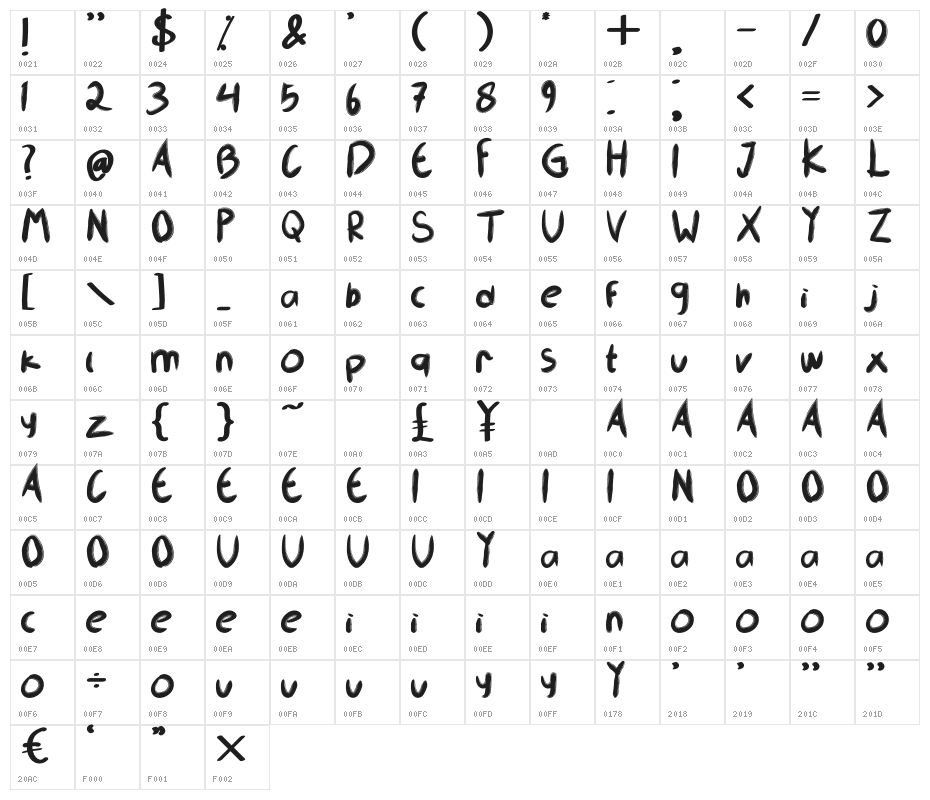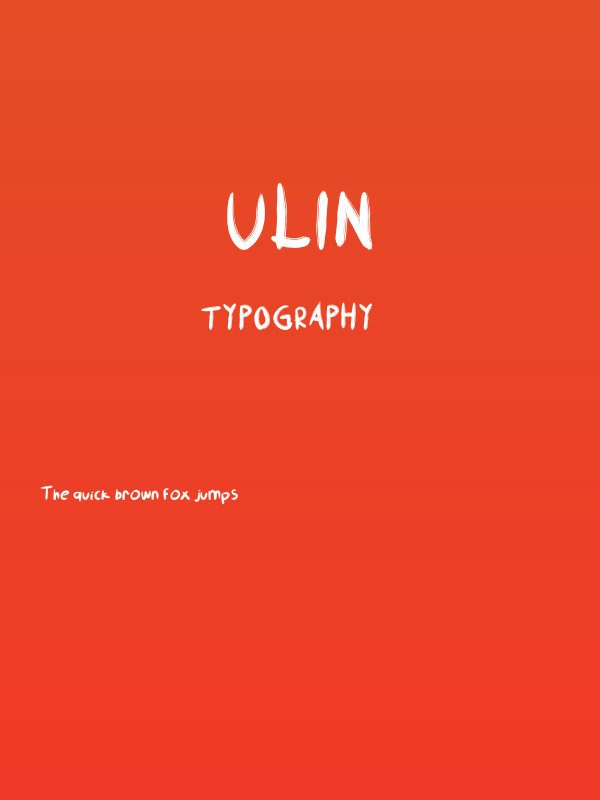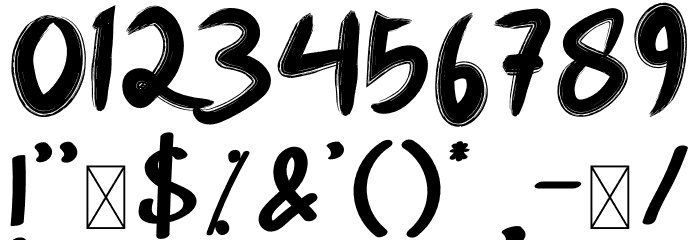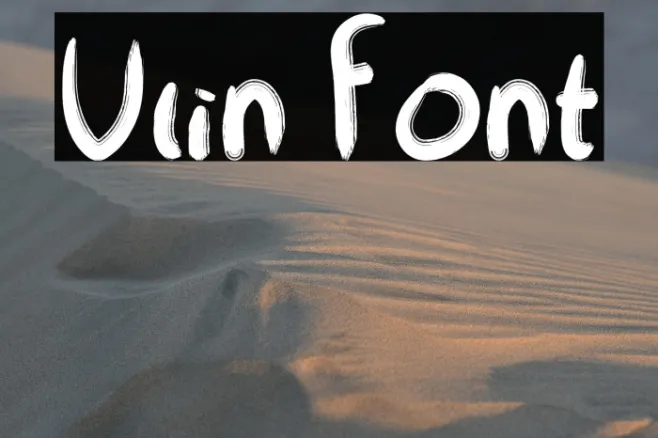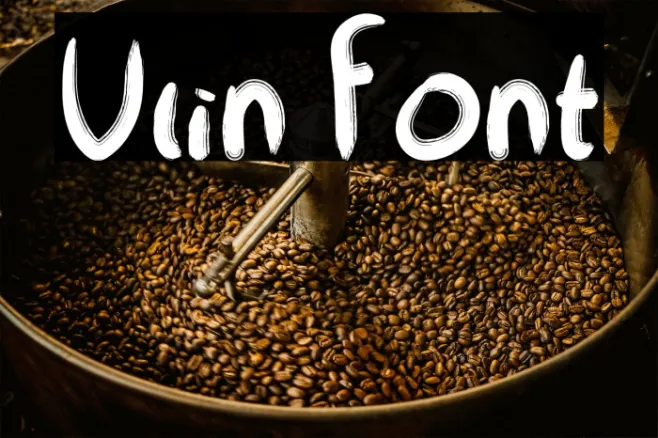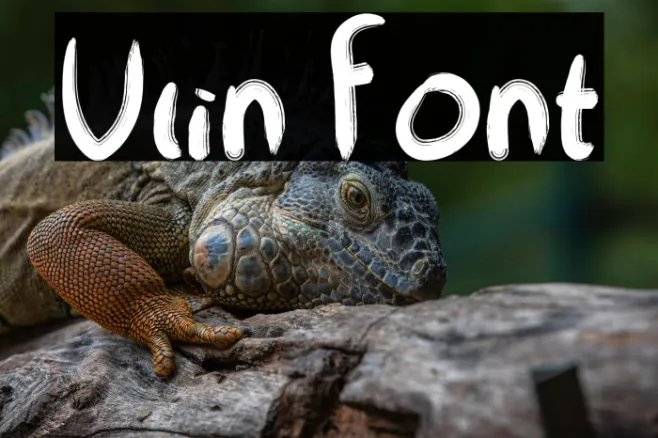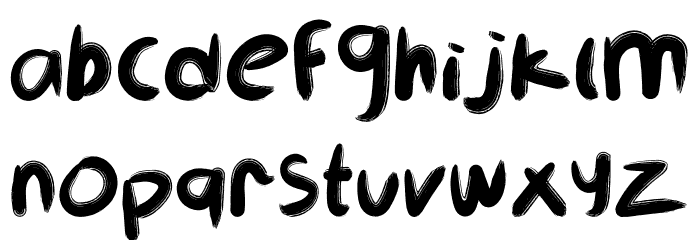
Ulin Font
Ulin Description
This font features a bold and expressive handwritten style, characterized by its dynamic brush strokes and organic flow. The letters exhibit a playful yet sophisticated appearance, with varying thicknesses that add depth and movement. The uppercase and lowercase letters maintain a consistent style, while the numbers and special characters complement the overall aesthetic. This font's unique personality makes it stand out, offering a sense of creativity and energy.
ULIN UPPERCASE
ULIN LOWERCASE
ULIN OTHER CHARS